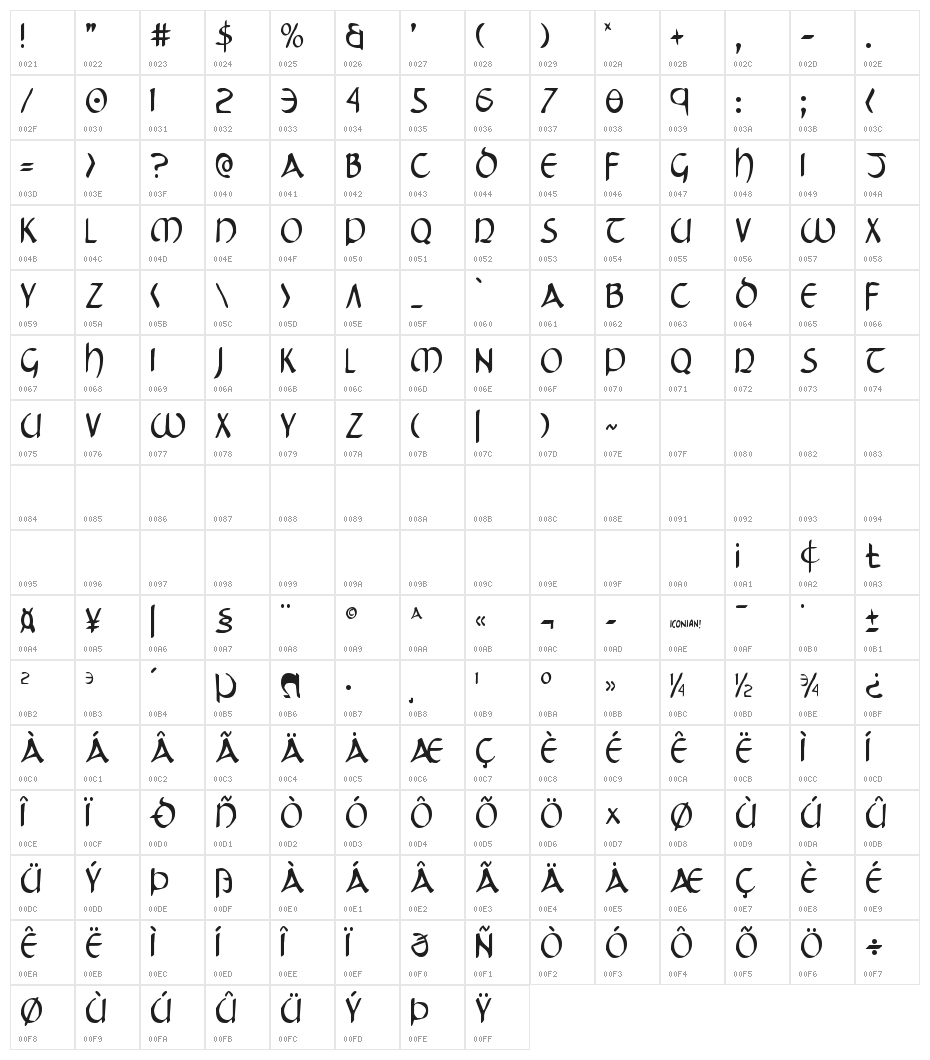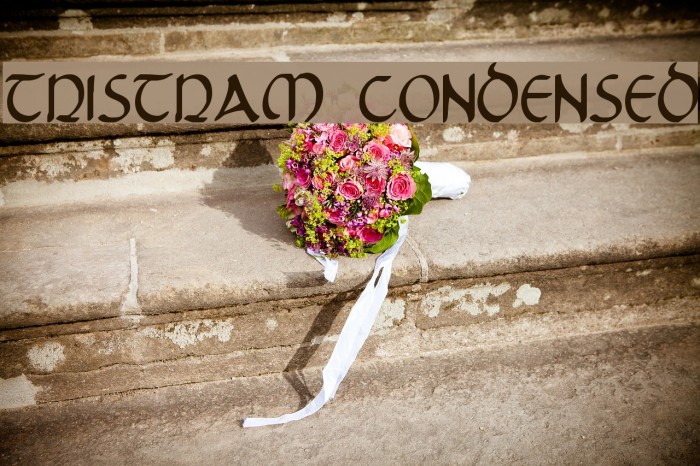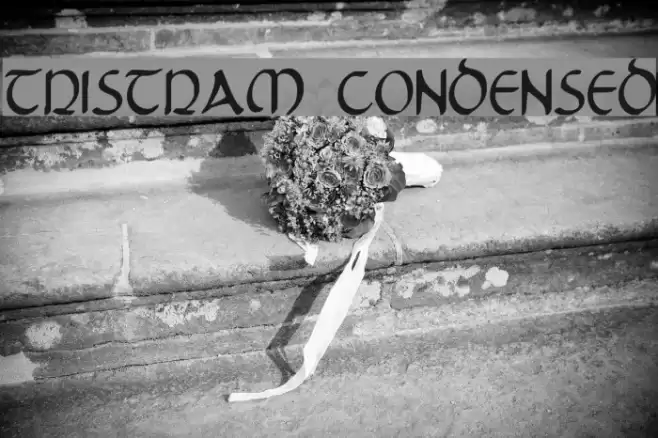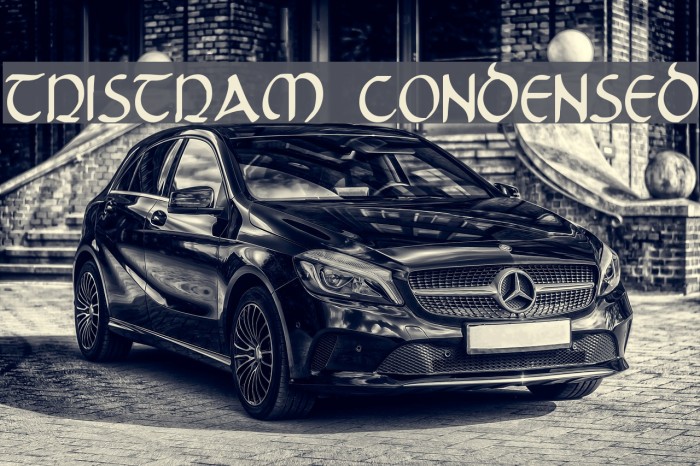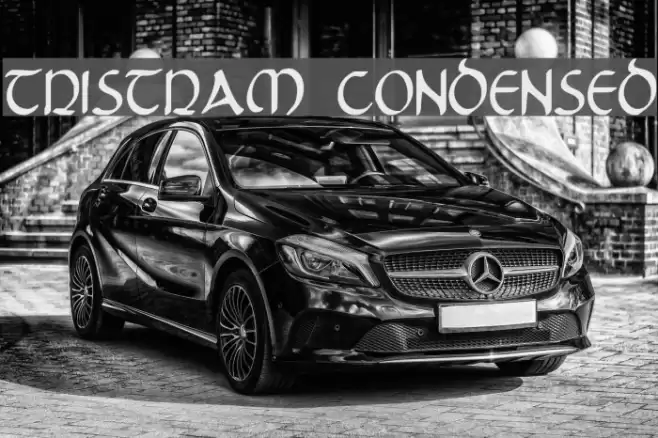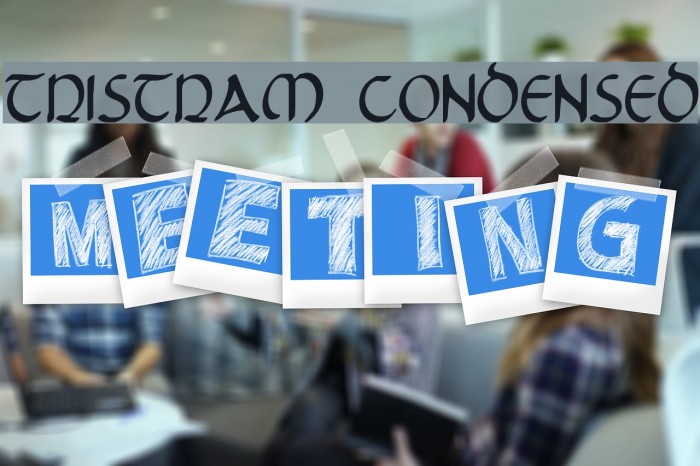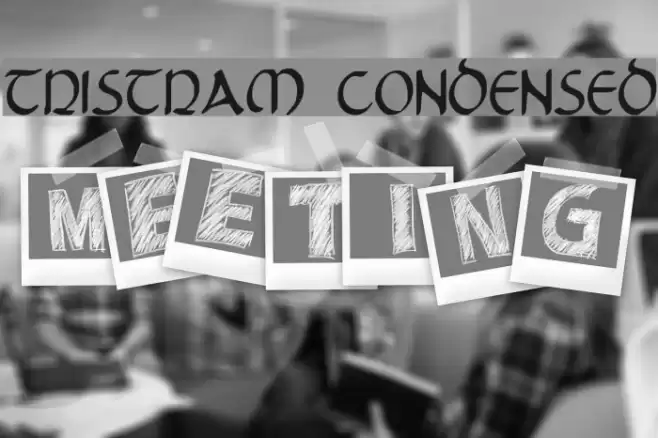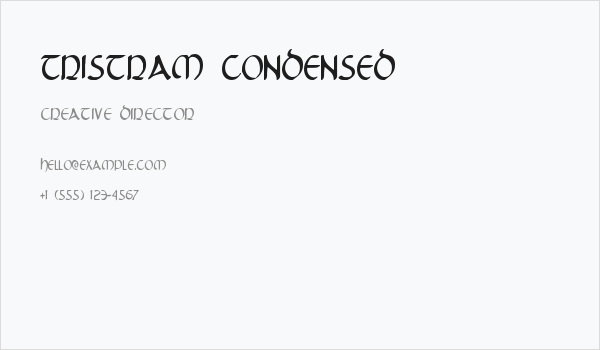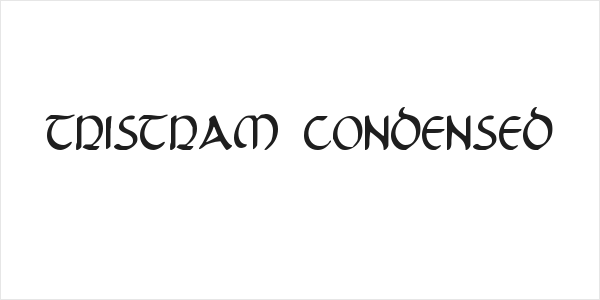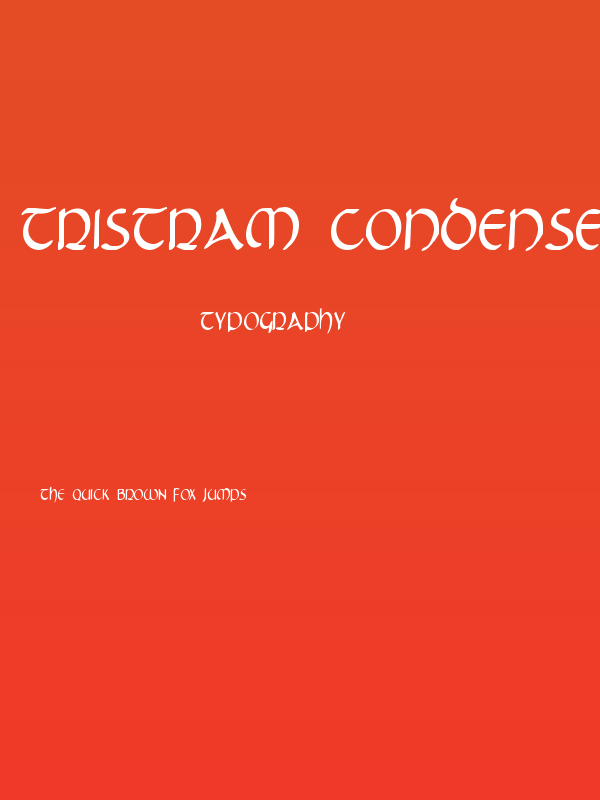
Tristram Condensed Font
Tristram Condensed Description
This font features a unique and artistic design with a medieval flair, characterized by its condensed and slightly angular letterforms. The uppercase and lowercase letters share a consistent style, with a distinct curvature and pointed edges that give it a dynamic and flowing appearance. The numerals and special characters maintain this aesthetic, ensuring a cohesive look across all glyphs. The font's design is reminiscent of calligraphic styles, yet it maintains a modern touch with its clean lines and balanced proportions.